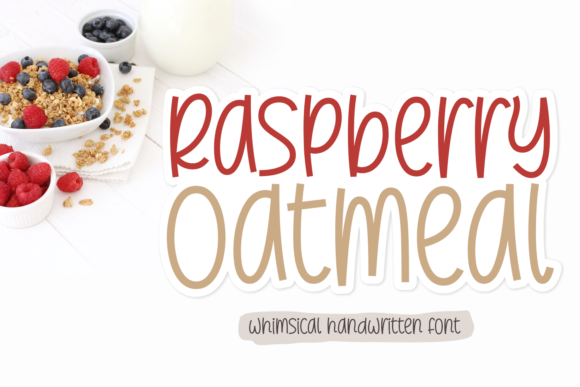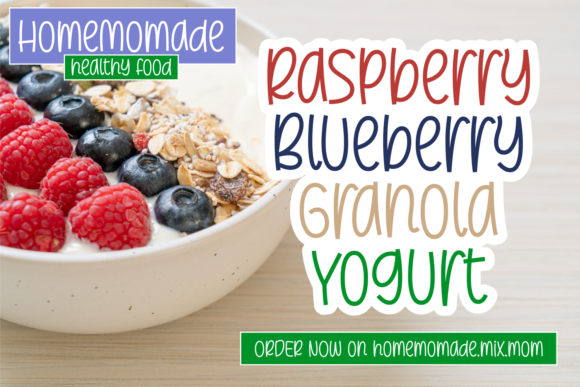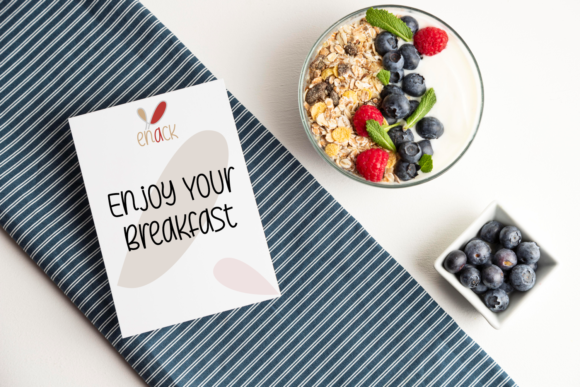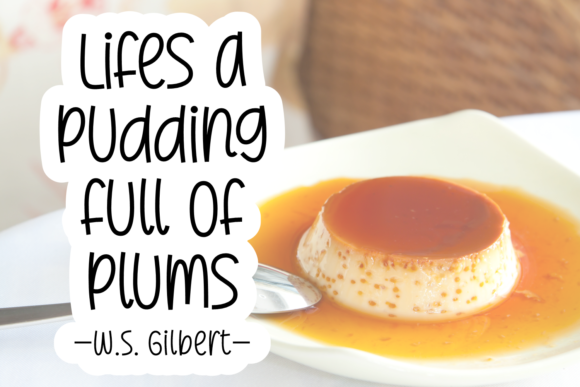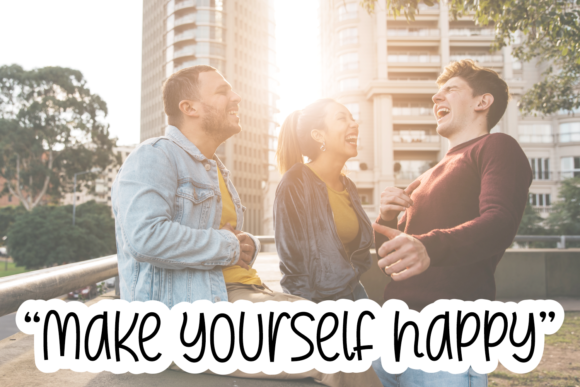
Raspberry Oatmeal Font
About Raspberry Oatmeal Font
Raspberry Oatmeal is a whimsical handwritten font with thin lines. You can use this creative typeface for food&drink menus, food labels, social media posts, culinary blogs, quotes, tags, packaging, branding, or logos.